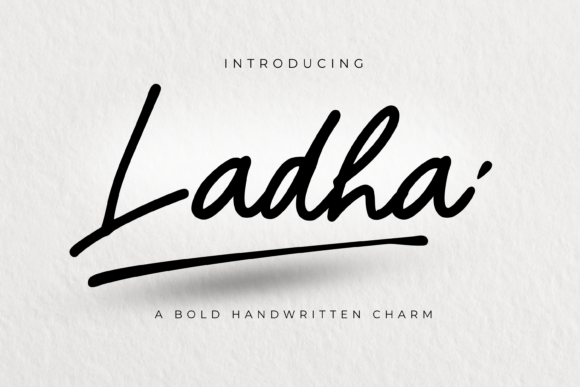
Ladha Font: The Bold and Lively Handwritten Script
In the world of typography, fonts play a crucial role in conveying the tone and personality of a message. A well-crafted font can elevate your creative project, making it stand out from the crowd. Introducing Ladha Font, a bold and lively handwritten script that speaks with confidence. With its carefree strokes and expressive character, Ladha! brings a spontaneous rhythm to your words, adding a fun, modern edge to your designs.
Say Hello to Ladha!
Ladha! is a unique and energetic font that is perfect for creative projects that require a bold and lively touch. Crafted with energy and personality, this font is designed to make your message feel real, fresh, and unforgettable. Whether you’re looking to create bold logos, standout packaging, stylish quotes, apparel, social media graphics, or more, Ladha! is the perfect choice.
Key Features of Ladha Font
- Bold and Lively: Ladha! is a bold and lively handwritten script that adds a fun, modern edge to your designs.
- Carefree Strokes: The font features carefree strokes that bring a spontaneous rhythm to your words.
- Expressive Character: Ladha! has an expressive character that makes your message feel real, fresh, and unforgettable.
- Versatile: The font is perfect for a wide range of creative projects, including bold logos, standout packaging, stylish quotes, apparel, social media graphics, and more.
10 Creative Ways to Use Ladha Font
Ladha! is a versatile font that can be used in a variety of creative projects. Here are 10 ideas to get you started:
- Bold Logos: Use Ladha! to create bold and eye-catching logos that make a statement.
- Standout Packaging: Add a fun and modern edge to your packaging designs with Ladha!.
- Stylish Quotes: Create stylish and inspiring quotes that showcase your message with Ladha!.
- Apparel: Use Ladha! to create trendy and fashionable apparel designs that appeal to a wide audience.
- Social Media Graphics: Add a bold and lively touch to your social media graphics with Ladha!.
- Posters and Flyers: Create eye-catching posters and flyers that grab attention with Ladha!.
- Brochures and Catalogs: Use Ladha! to add a modern and fresh touch to your brochures and catalogs.
- Business Cards: Create bold and memorable business cards with Ladha!.
- Invitations: Use Ladha! to create fun and stylish invitations for parties, events, and more.
- Digital Marketing Materials: Add a bold and lively touch to your digital marketing materials, such as email campaigns and landing pages, with Ladha!.
Typography Tips for Using Ladha Font
To get the most out of Ladha!, here are some typography tips to keep in mind:
- Pair with Neutral Fonts: Pair Ladha! with neutral fonts to create contrast and make your message stand out.
- Use Bold and Italic Styles: Experiment with bold and italic styles to add emphasis and create visual hierarchy.
- Adjust Font Size: Adjust the font size to create visual interest and guide the reader’s attention.
- Play with Color: Experiment with different colors to add personality and make your design pop.
The Benefits of Using Ladha Font
Ladha! offers a range of benefits that make it an ideal choice for creative projects. Here are some of the advantages of using Ladha!:
- Unique and Memorable: Ladha! is a unique and memorable font that makes your message stand out.
- Versatile: The font is versatile and can be used in a wide range of creative projects.
- Easy to Read: Ladha! is easy to read, making it perfect for body text and headlines.
- Customizable: The font is customizable, allowing you to adjust the style to suit your needs.
In conclusion, Ladha Font is a bold and lively handwritten script that adds a fun, modern edge to your creative projects. With its carefree strokes and expressive character, Ladha! brings a spontaneous rhythm to your words, making your message feel real, fresh, and unforgettable. Whether you’re looking to create bold logos, standout packaging, stylish quotes, apparel, social media graphics, or more, Ladha! is the perfect choice.